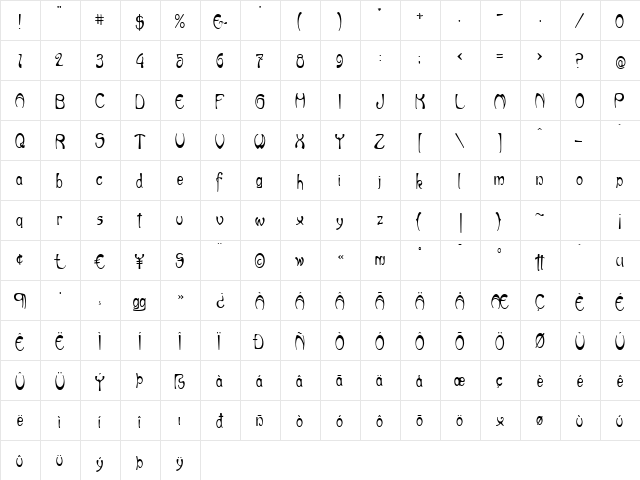
Art Nouveau-Cafe Regular
| Foundry | Gophmann A.L. |
| Designer | Gophmann A.L. |
Design Context for Art Nouveau-Cafe Typeface
Art Nouveau-Cafe is a composed and adaptable typeface that performs quietly and consistently across a wide range of design contexts.